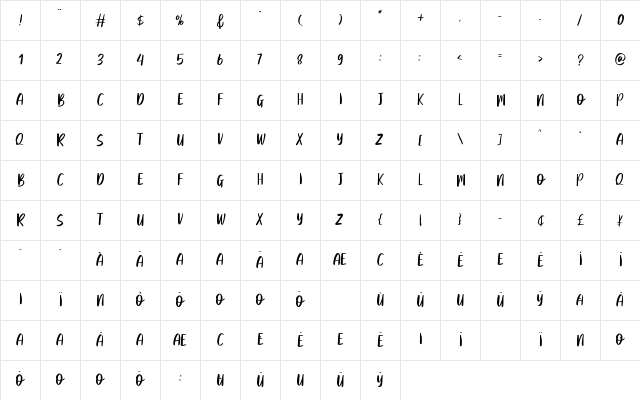
Balming Regular
Foundry: Vultype Co
Designer: Candra
Design Context for Balming
Balming is a composed and adaptable typeface that performs quietly and consistently across a wide range of design contexts.